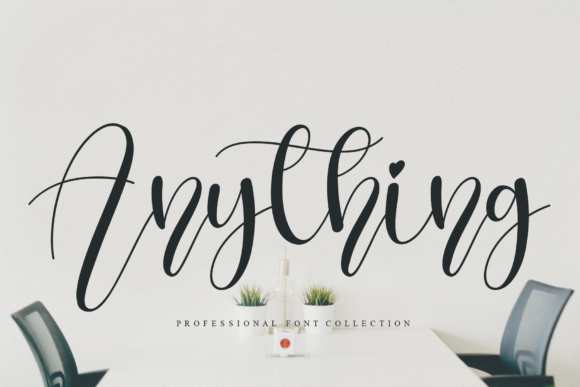
The Magical World of Anything Font
I’ll never forget the time I was working on a whimsical branding project for a children’s party planning service. I had all the elements in place – the color palette, the logo concept, and the overall aesthetic – but something was missing. The font I had chosen just wasn’t doing justice to the playful and imaginative vibe I was going for. That’s when I stumbled upon Anything Font, and let me tell you, it was like a fairytale come true! ✨
A Personal Review of Anything Font
• ✨ Unique and Modern Style: Anything Font has a chic and whimsical handwritten style that instantly elevates any design.
• ✅ Magical and Playful: The font’s quirky and adventurous personality makes it perfect for projects that require a touch of whimsy.
• 💫 Highly Versatile: Whether you’re designing a logo, a social media graphic, or a party invitation, Anything Font adapts seamlessly to any visual style.
While Anything Font is an amazing addition to any design project, there are a few things to keep in mind: 🤔
• ⚠️ Legibility at Small Sizes: Like many script fonts, Anything Font can get a bit tricky to read at very small sizes. Make sure to test it out at different scales to ensure it works for your project.
• ⚠️ Overuse of Swashes: With great power comes great responsibility! Be mindful of overusing swashes and stylistic alternates, as they can make the text harder to read if not used thoughtfully.
4. Experiment with OpenType features like swashes and stylistic alternates to add some magic to your design! ✨
The Story Behind Anything Font
Anything Font was designed with the intention of bringing a touch of magic to everyday designs. Its creator, a talented type designer, wanted to craft a font that would evoke a sense of wonder and playfulness. Inspired by the whimsical world of fairytales and children’s literature, Anything Font was born – a font that’s equal parts chic, modern, and enchanting. 🌟
Q: Is Anything Font suitable for body text?
A: While Anything Font is beautiful, it’s best used for headlines, titles, and short paragraphs. For longer body text, consider a more legible font.